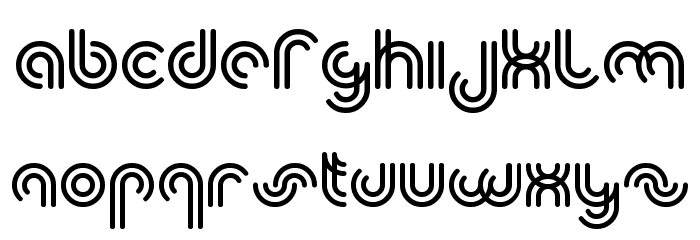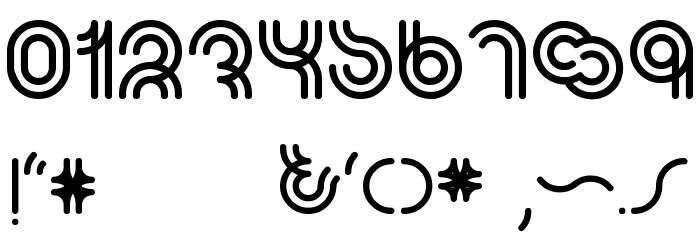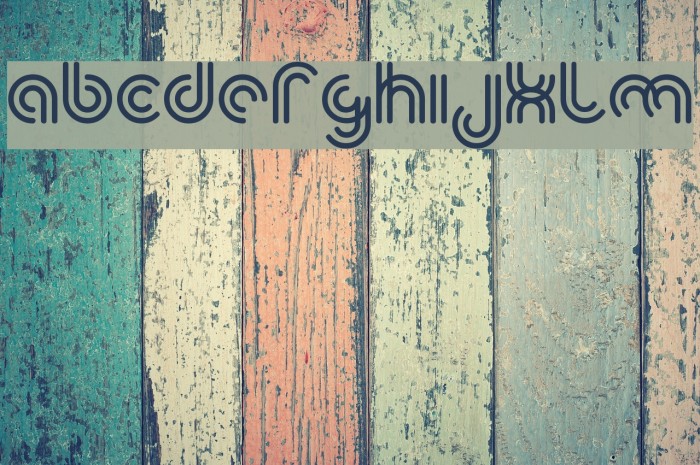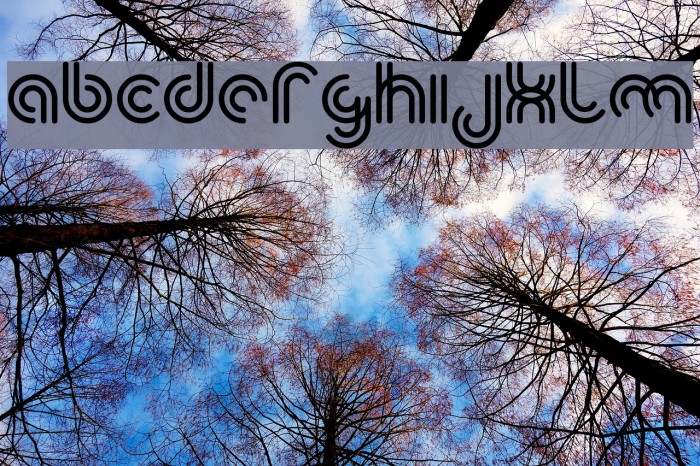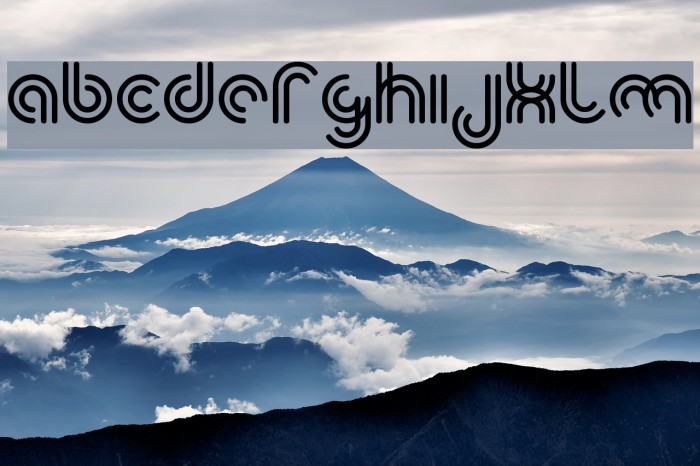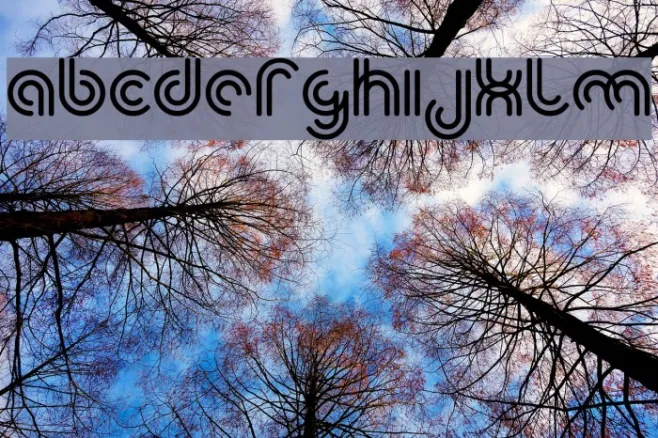
yum Font
This font features a unique and modern design with a double-line structure that creates a sense of movement and rhythm. The characters are rounded and interconnected, giving a futuristic and playful appearance. The consistent use of parallel lines throughout each letterform adds a sense of cohesion and unity. The numerals and special characters follow the same stylistic approach, ensuring a harmonious look across all elements. This font's distinct style makes it stand out, offering a fresh take on traditional letterforms.
A modern, double-line font with a futuristic and playful design.
- Proposed Projects: Ideal for branding projects, modern art posters, futuristic-themed designs, and creative digital media.
- Use Case: Logos, Posters, Creative Media